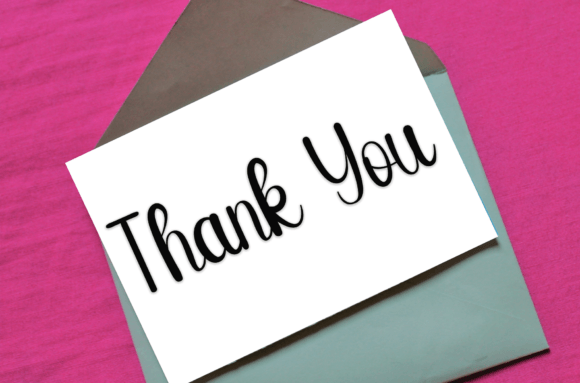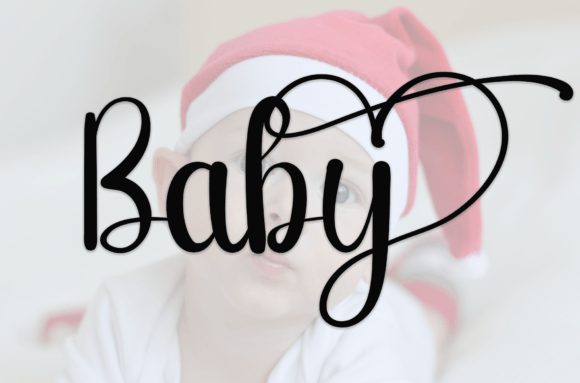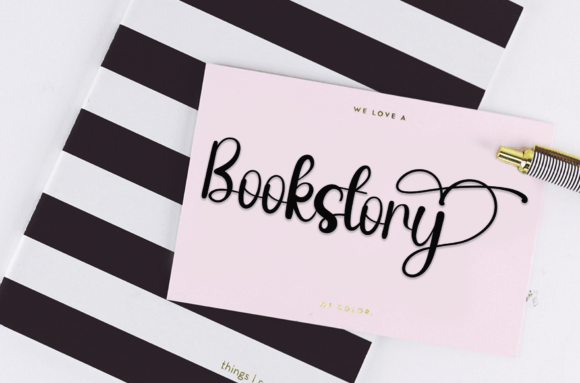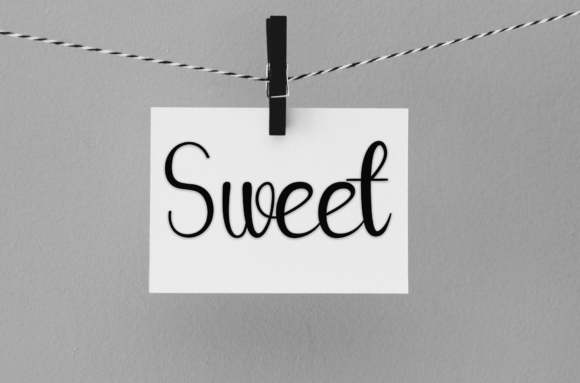
Bunny Font: The Ultimate Choice for Cute and Friendly Designs
Are you a designer or crafter looking for a font that can add a touch of warmth and personality to your creative projects? Look no further than the Bunny Font! This adorable handwritten font is designed to bring a friendly feel to any design, making it perfect for a wide range of applications, from Instagram posts to DIY projects.
What Makes Bunny Font So Special?
Bunny Font is a cute and casual handwritten font that is sure to capture the hearts of designers and crafters alike. Its incredibly friendly feel makes it an excellent choice for anyone looking to add a personal touch to their designs. Whether you’re creating social media graphics, crafting invitations, or designing merchandise, Bunny Font is the perfect choice.
Key Features of Bunny Font
- Cute and Casual Design: Bunny Font features a playful and informal design that’s perfect for creative projects.
- Handwritten Style: This font boasts a beautiful handwritten style that’s sure to add a personal touch to any design.
- Friendly Feel: The font’s friendly feel makes it perfect for designs that require a warm and approachable tone.
- Versatile: Bunny Font can be used for a wide range of applications, from digital designs to print materials.
Uses of Bunny Font
Bunny Font is an incredibly versatile font that can be used for a variety of creative projects. Here are some ideas to get you started:
- Instagram Graphics: Use Bunny Font to create eye-catching Instagram graphics that showcase your personality and style.
- DIY Projects: Add a personal touch to your DIY projects, such as crafting invitations, making signs, or creating art.
- Calligraphy Scripts: Bunny Font is perfect for calligraphy scripts, adding a touch of elegance and sophistication to any design.
- Merchandise Design: Use Bunny Font to create custom merchandise, such as t-shirts, mugs, or tote bags.
Tips for Using Bunny Font
Here are some tips for getting the most out of Bunny Font:
- Experiment with Colors: Bunny Font looks great in a variety of colors, so don’t be afraid to experiment and find the perfect hue for your design.
- Mix and Match: Combine Bunny Font with other fonts to create a unique and eye-catching design.
- Play with Sizes: Use different font sizes to add visual interest and hierarchy to your design.
- Add Decorations: Consider adding decorations, such as illustrations or graphics, to enhance your design and make it more engaging.
Bunny Font is a delightful handwritten font that’s sure to bring a touch of warmth and personality to any design. With its cute and casual design, friendly feel, and versatility, it’s the perfect choice for designers and crafters alike. Whether you’re creating social media graphics, crafting invitations, or designing merchandise, Bunny Font is sure to turn your creative ideas into true pieces of art!